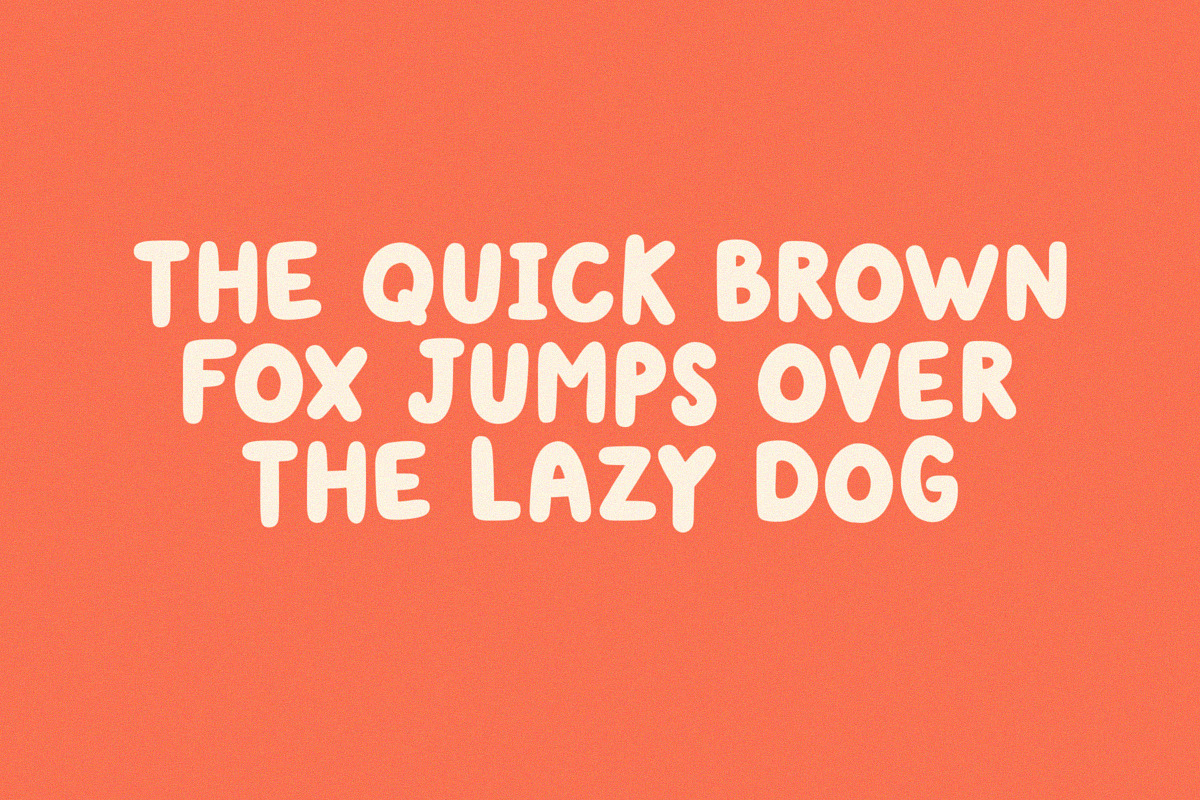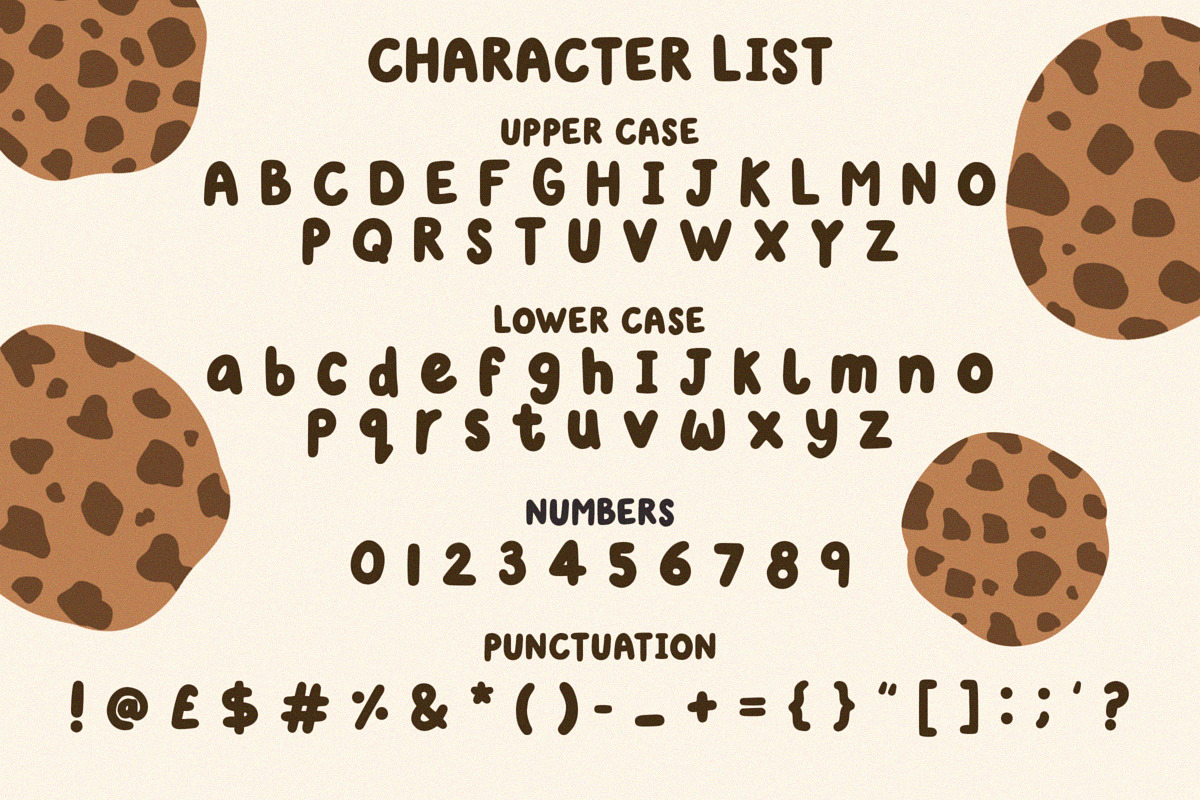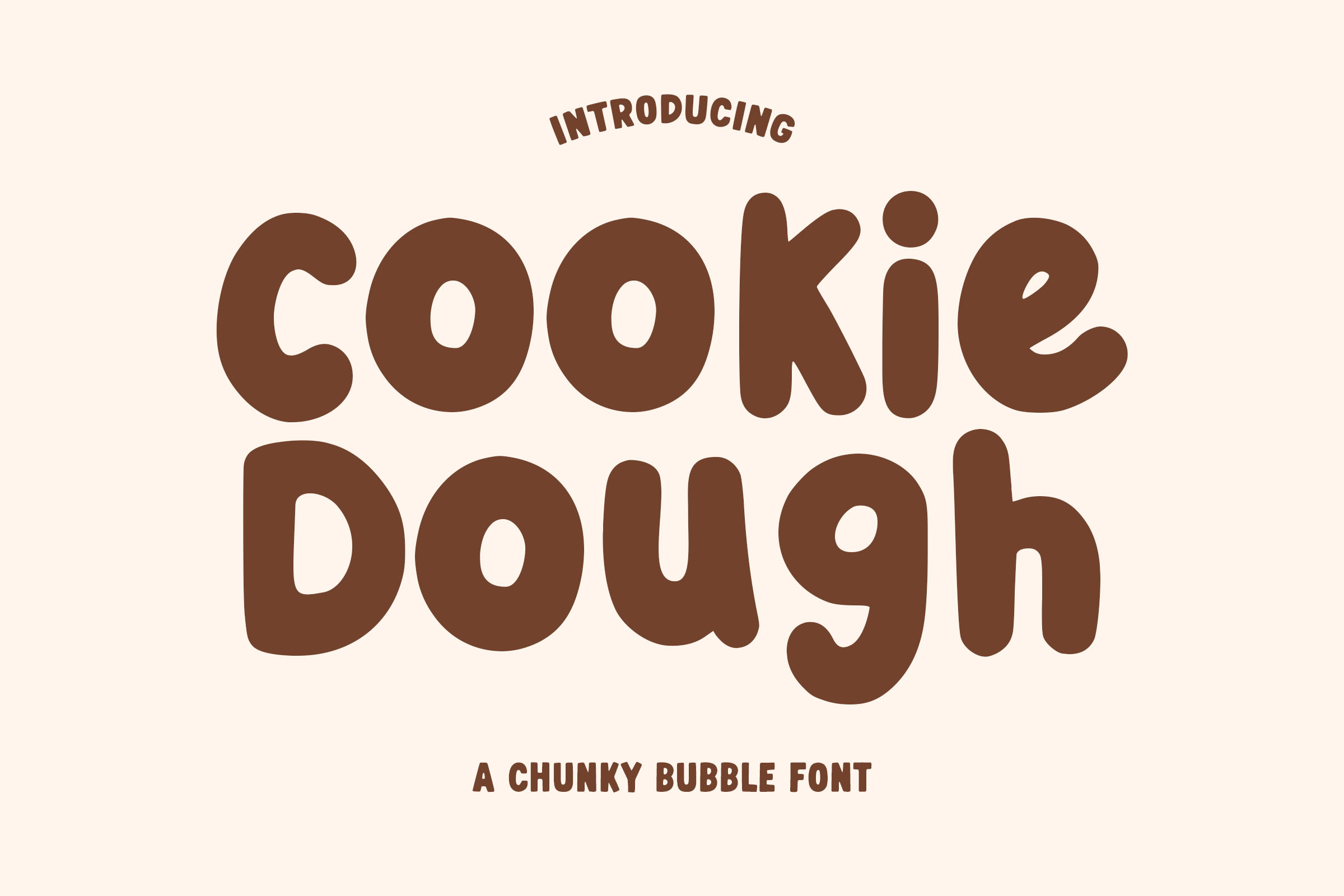
Cookie Dough - A Random Bubble Font
Cookie Dough is a round bubble typeface perfect for any fun quirky design work! This font can be used for anything such as T-Shirt designs, phone cases, greeting cards, invitations, mugs and so much more! Get creative!